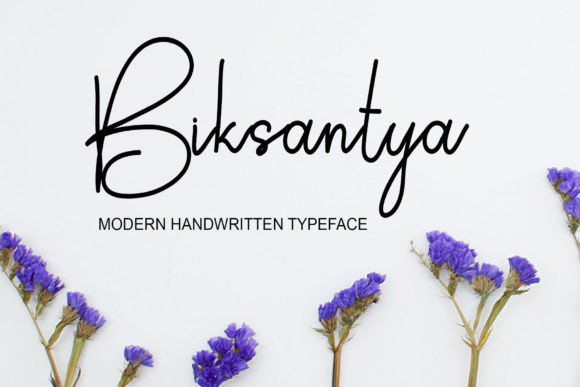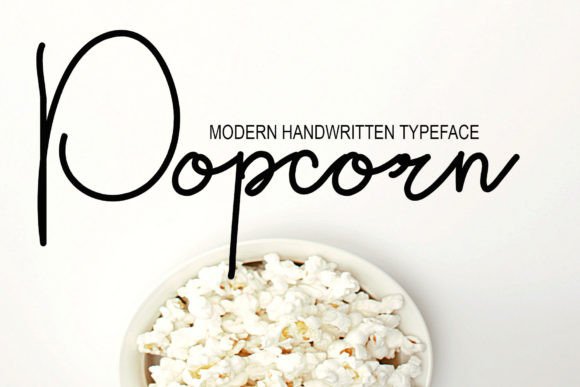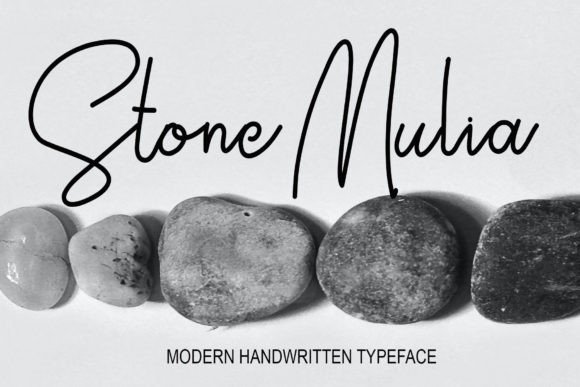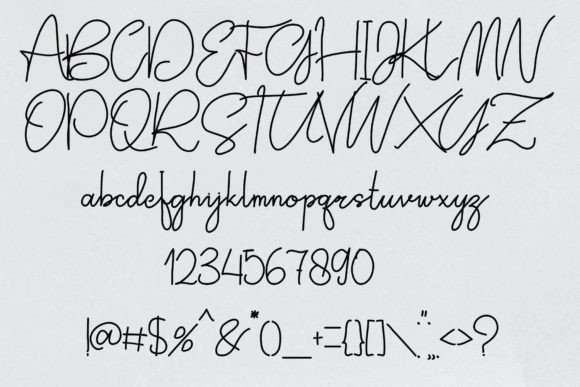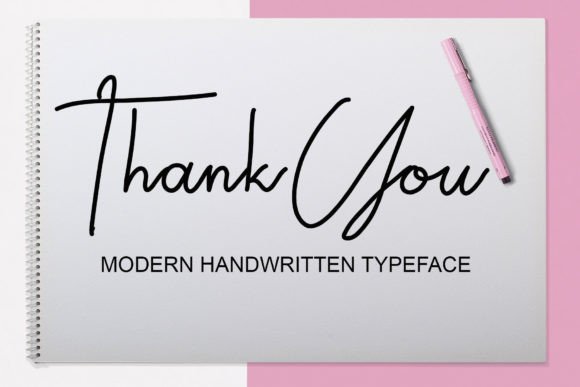
The Aneukjen Font: A Handwritten Gem for Creative Projects
I’ll never forget the time I was working on a wedding invitation design project, and I just couldn’t seem to find the perfect font. My client wanted something elegant, yet playful; simple, yet stylish. I scoured the internet, tried out dozens of fonts, but nothing seemed quite right. That was until I stumbled upon the Aneukjen font. ✨
As soon as I saw it, I knew I had found what I was looking for. The Aneukjen font is a beautifully handwritten font, carefully crafted using a tablet. Its simplicity and elegance make it perfect for a wide range of creative projects, from wedding invitations and business cards to website designs and advertisements.
- ✨ Elegant and sophisticated, yet approachable and friendly
- ✅ Works well for both digital and print projects
- ✅ Simple, yet stylish and eye-catching
While the Aneukjen font is an excellent choice for many projects, it’s not without its quirks. ⚠️ One thing to note is that it can be a bit limited in terms of variations and alternates. However, this simplicity is also part of its charm.
Another thing to consider is that, because it’s a handwritten font, it may not be the best choice for very formal or corporate projects. 🤔 However, for most creative projects, the Aneukjen font is an excellent choice.
The Story Behind Aneukjen
The Aneukjen font was created by a talented designer who wanted to create a font that was both elegant and approachable. Using a tablet, they carefully crafted each letter and character to create a font that’s both simple and stylish.
The designer’s goal was to create a font that could be used for a wide range of creative projects, from wedding invitations to website designs. And with Aneukjen, they succeeded.
| Font Name | Aneukjen Font |
| Author | Canden Meutuah |
Q: What is the Aneukjen font?
A: The Aneukjen font is a beautifully handwritten font, carefully crafted using a tablet. It’s perfect for creative projects that need a touch of elegance and sophistication.
Q: Can I use the Aneukjen font for digital projects?
A: Yes, the Aneukjen font works well for digital projects, including website designs, social media graphics, and more.
Q: Is the Aneukjen font easy to read?
A: Yes, the Aneukjen font is highly legible, even at small font sizes. This makes it perfect for body text, captions, and other applications where readability is key.